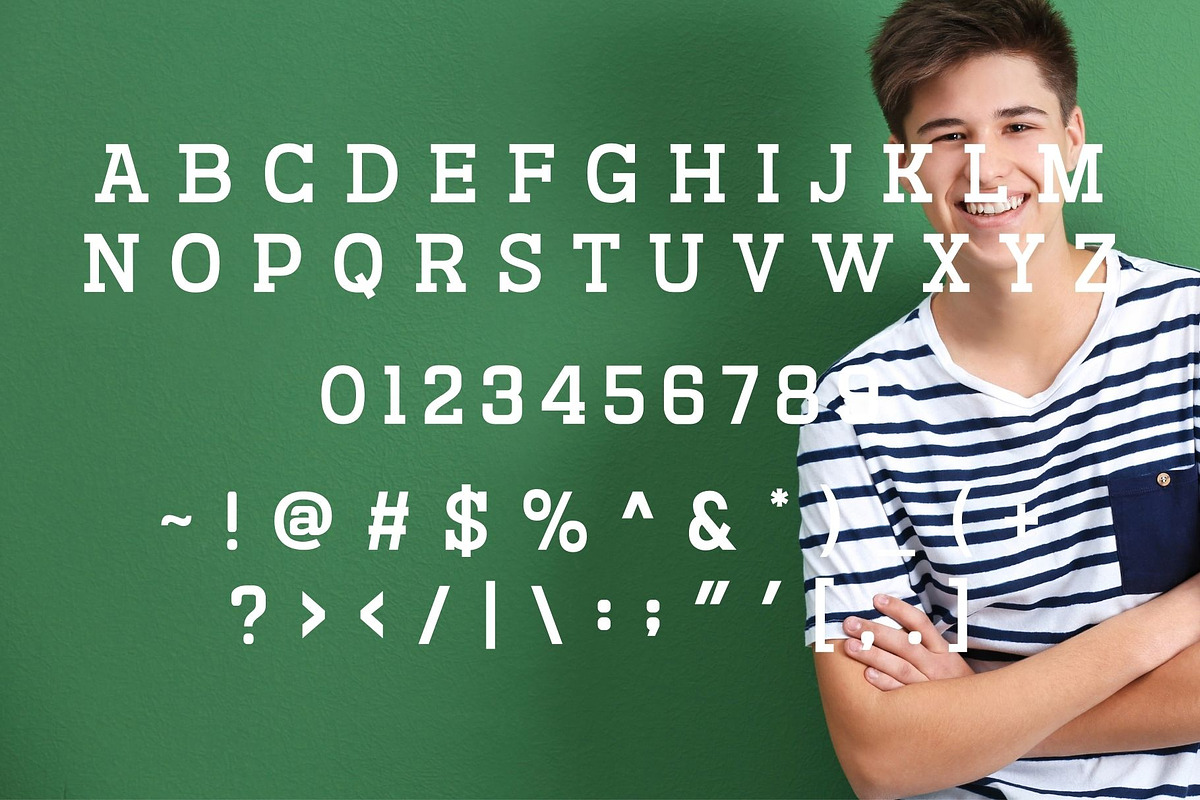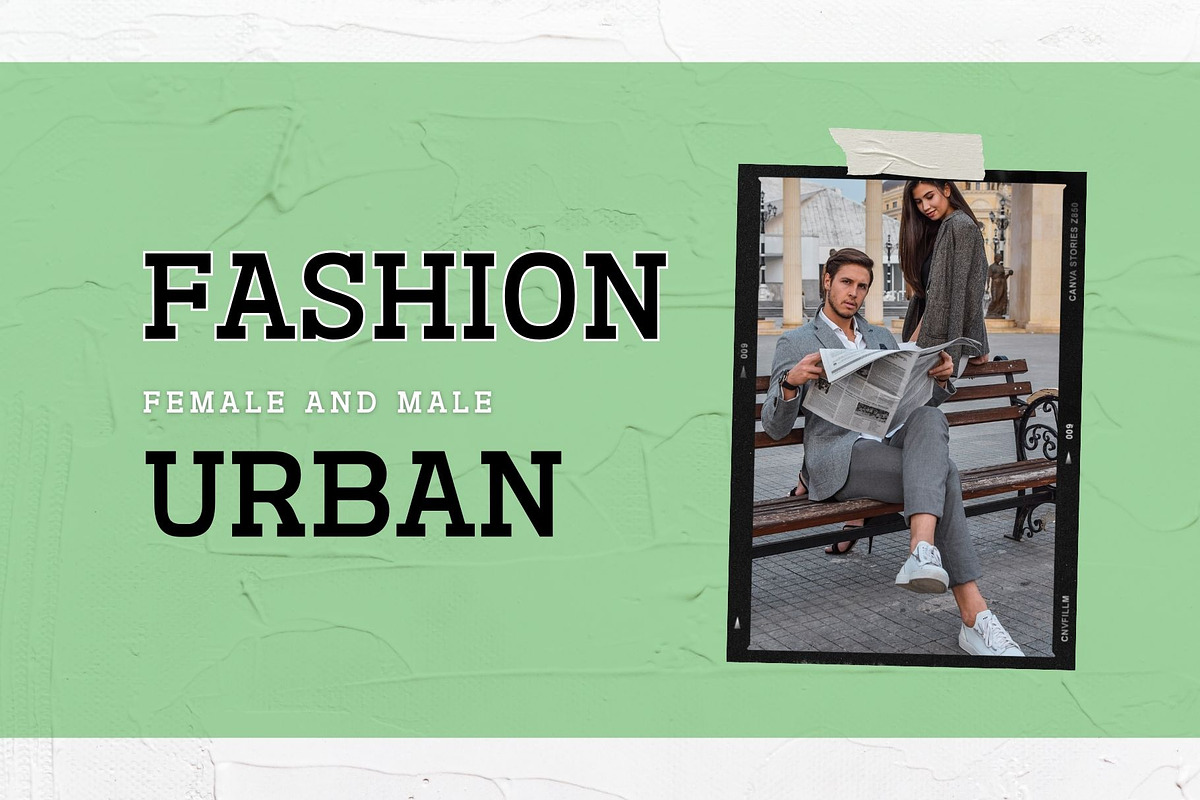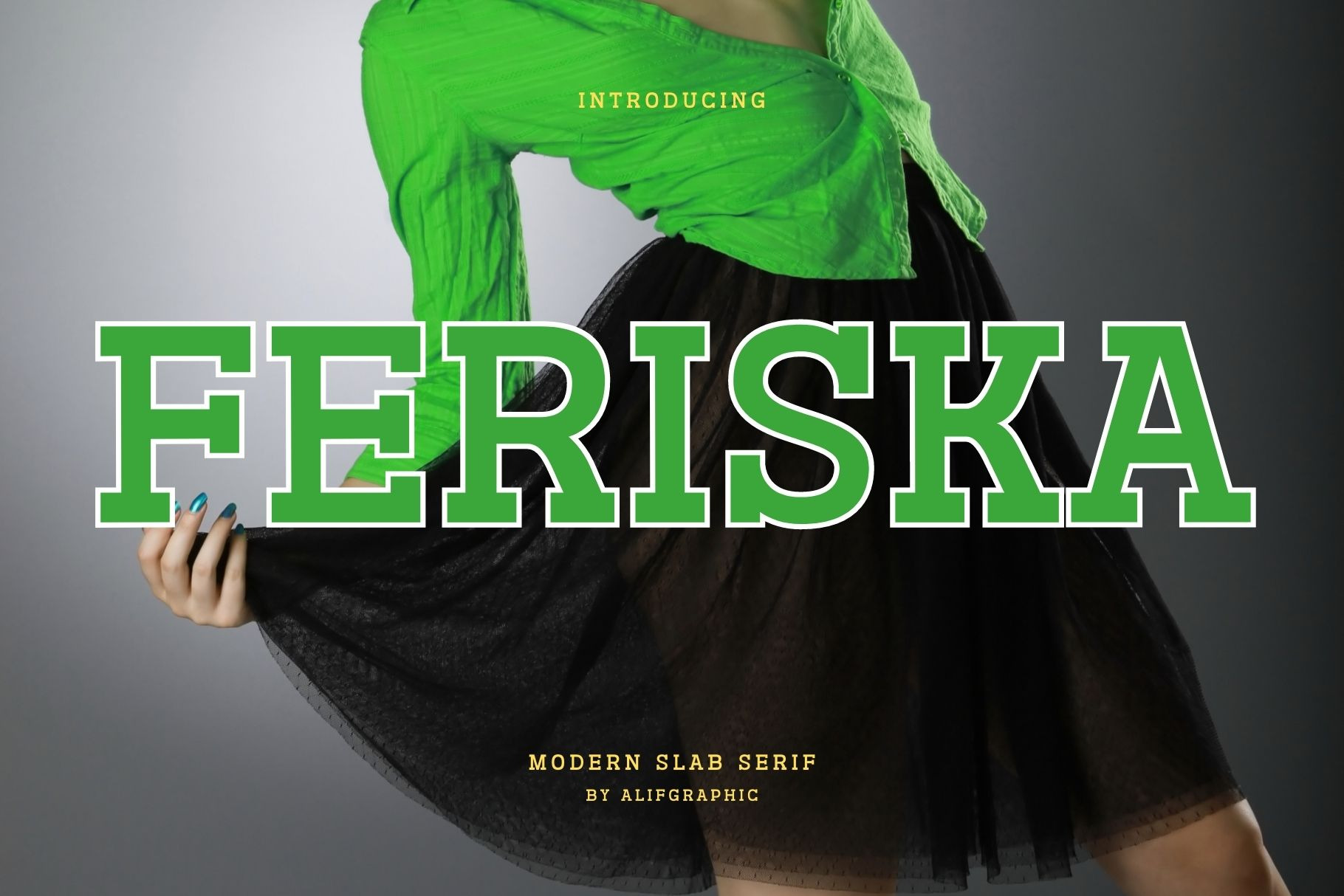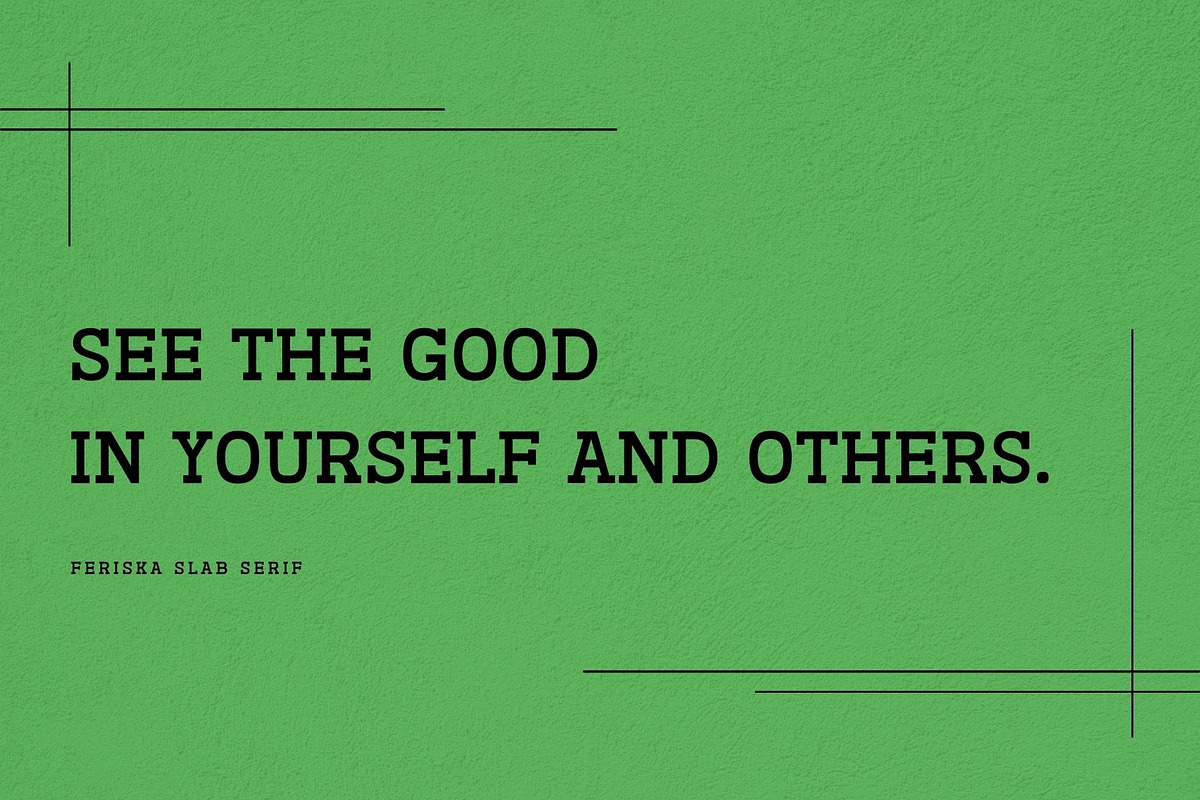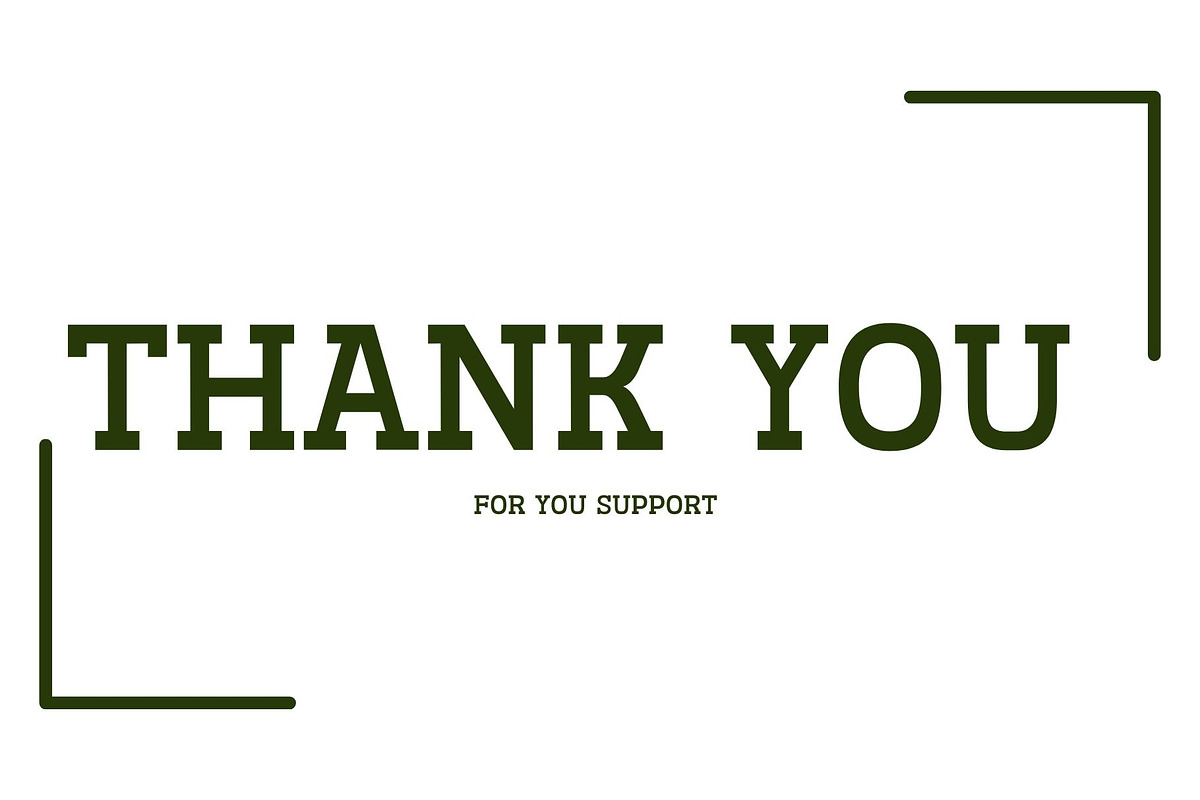
Feriska - Modern Slab Serif Typeface
Introducing 'Feriska' Font:
An exquisite font series designed to elevate your creative projects. Immerse yourself in the allure of meticulously crafted letters that strike the perfect balance between modernity and elegance. Our commitment to precision shines through in the creation of each letter, prioritizing immaculate design to guarantee a flawless typographic expression.
Ideal for:
- Modern Designs
- Advertising Campaigns
- Web Design Projects
- Social Media
- Apparel Design
- Ready for Creative Expression
- Immaculately Crafted Letters